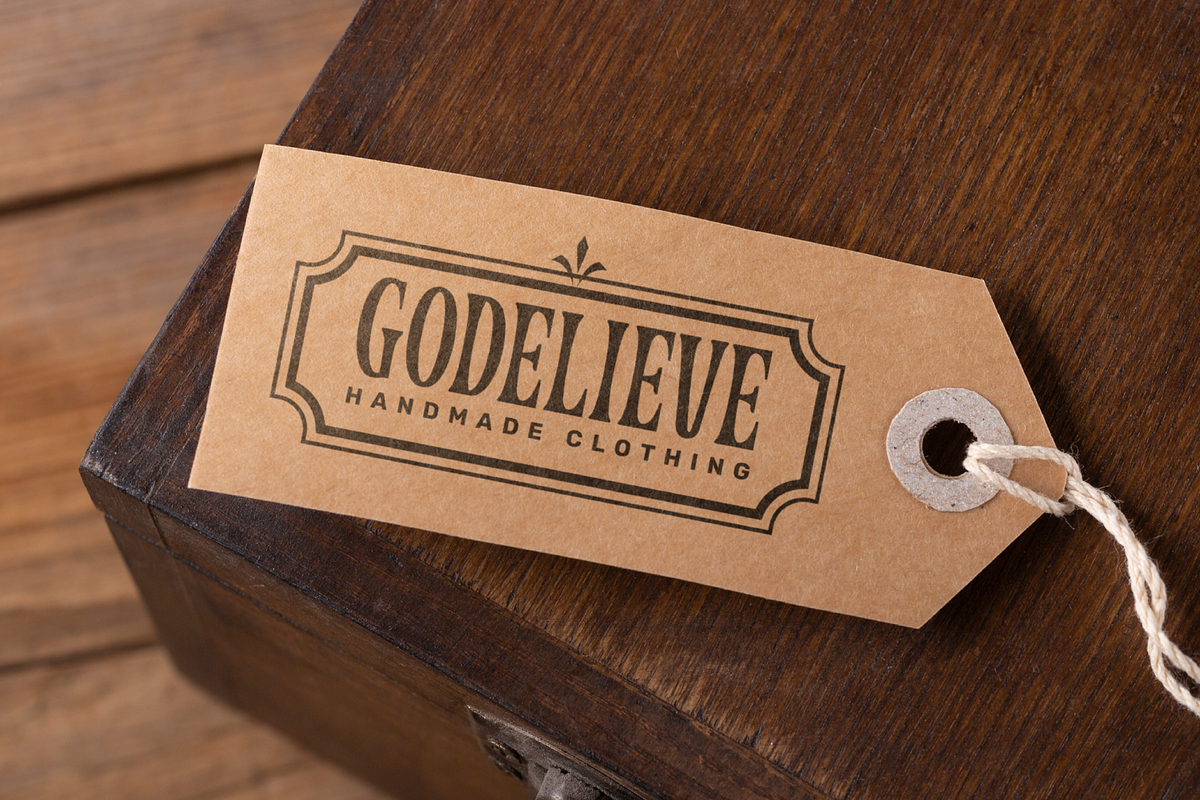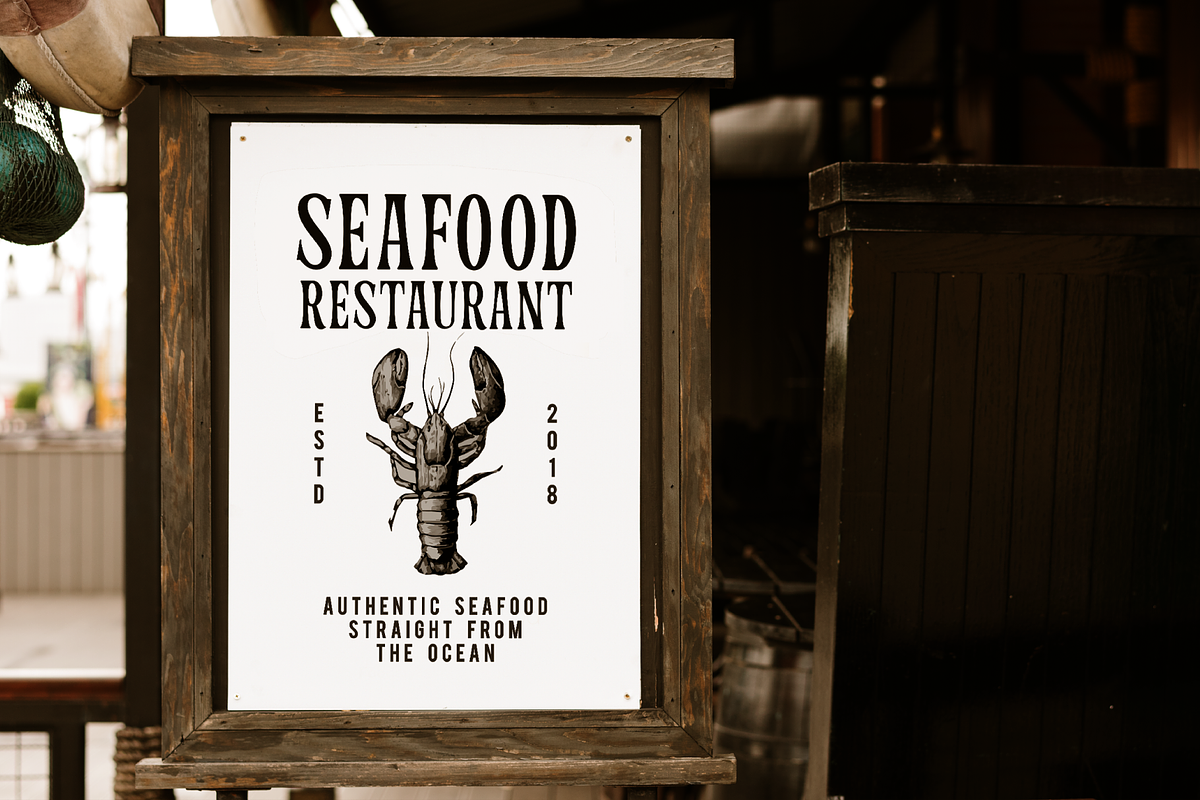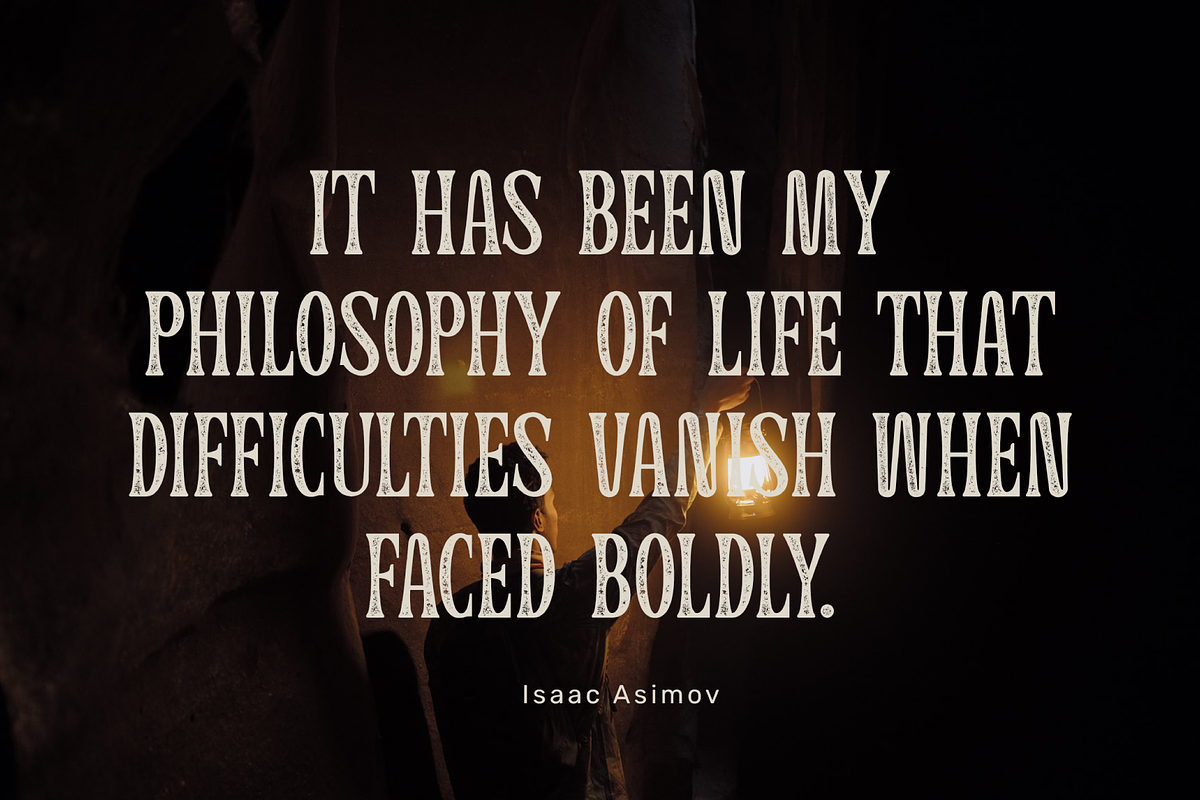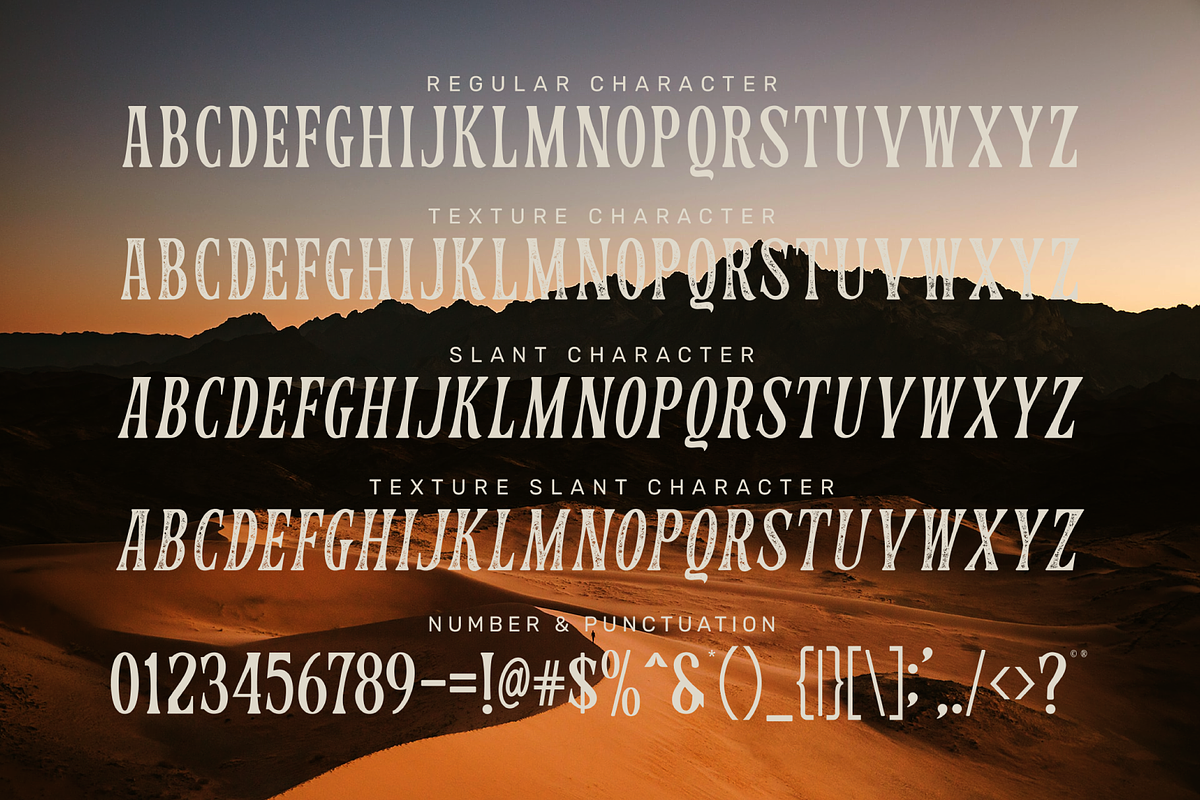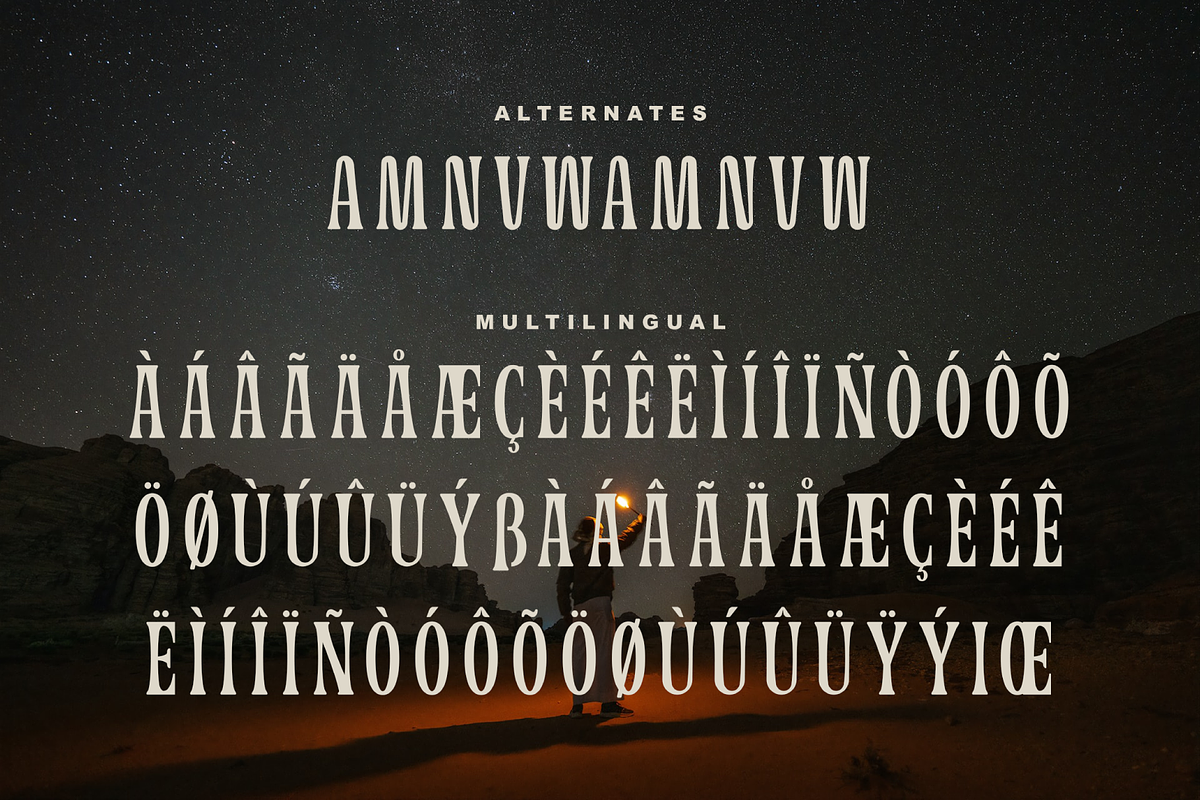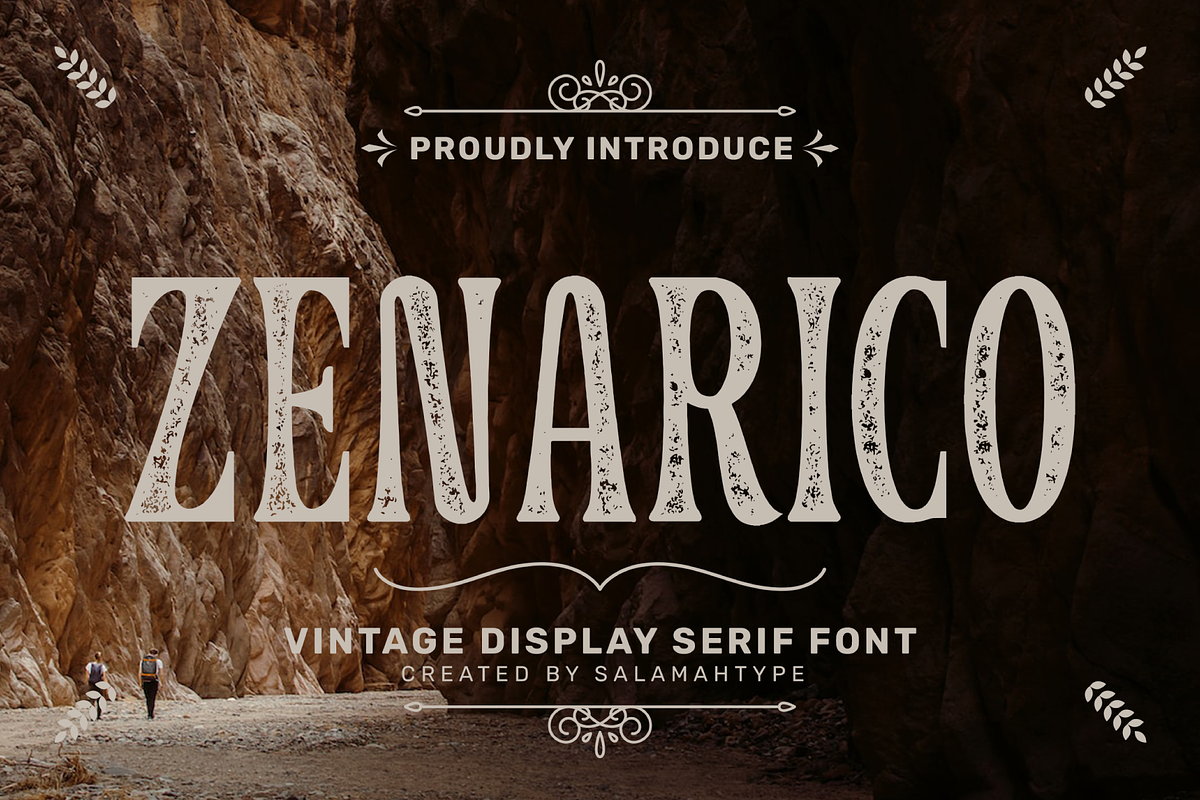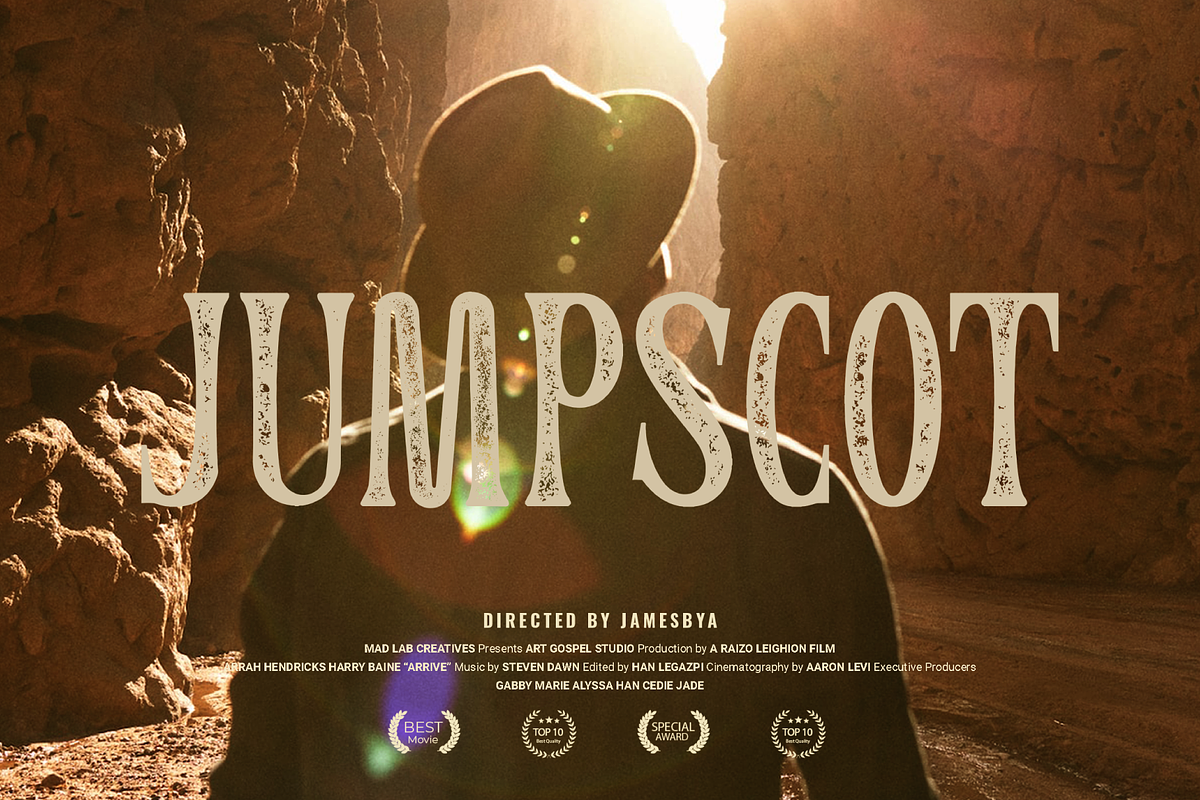
Zenarico Textured Vintage Font
Zenarico is a serif font with a vintage or classic style, Zenarico consists of regular and stamped or textured versions, this font is suitable for application to your logos, labels, posters or any product that wants a classic look.
- All caps